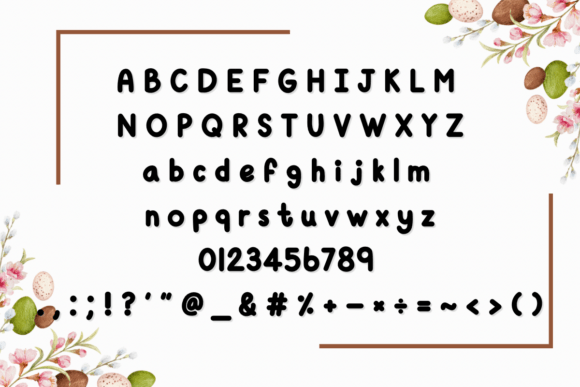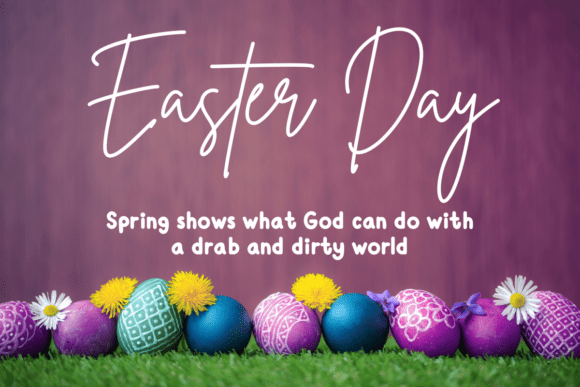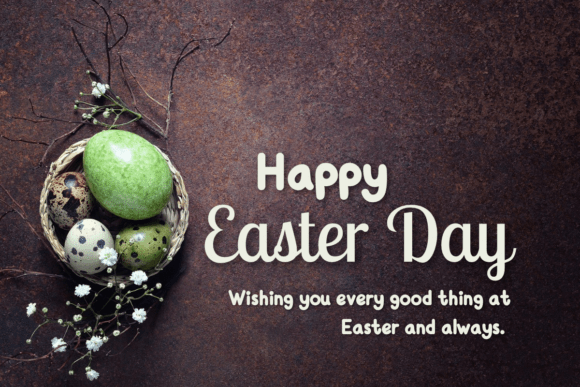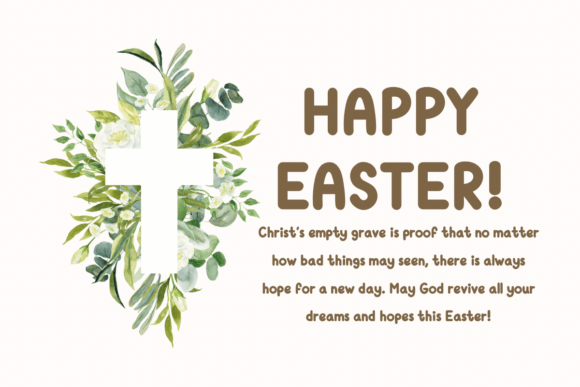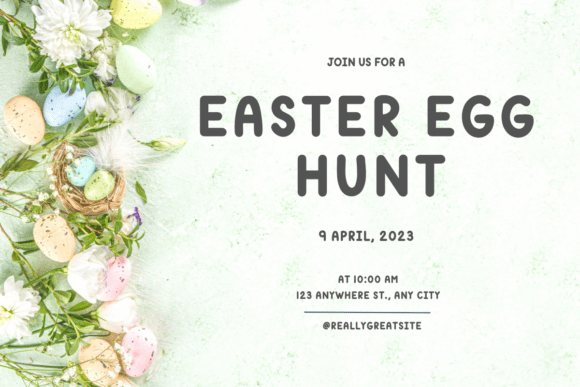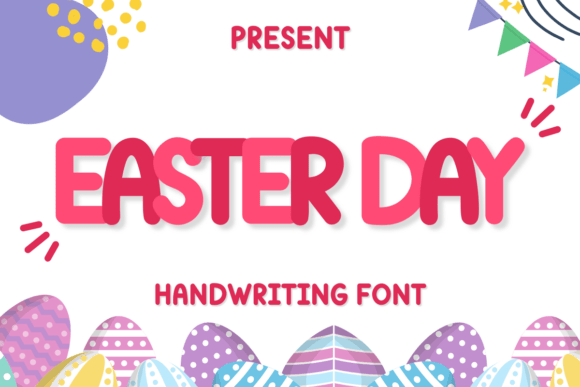
Easter Day Font: A Delightful Handwritten Style for Your Creative Projects
Easter Day is a charming handwritten font that has been making waves in the design community. Its unique and personal touch makes it perfect for a variety of creative projects, from taking notes and writing diaries to creating greeting cards and more. In this article, we’ll explore the features and uses of the Easter Day font, and how you can incorporate it into your designs.
What is Easter Day Font?
Easter Day is a handwritten font that boasts a warm and friendly aesthetic. Its flowing lines and delicate curves give it a personal and approachable feel, making it ideal for designs that require a touch of personality. The font is versatile and can be used for a wide range of projects, from everyday writing to decorative designs.
Uses of Easter Day Font
The Easter Day font is incredibly versatile and can be used for various design projects, including:
- Note-taking and journaling: Add a personal touch to your notes and diary entries with the Easter Day font.
- Greeting cards and invitations: Create beautiful and unique greeting cards and invitations for special occasions.
- Banners and signs: Use the Easter Day font to create eye-catching banners and signs for events and promotions.
- Content creation: Add a touch of personality to your blog posts, social media updates, and other content.
- Mugs and ceramics: Design personalized mugs, plates, and other ceramics with the Easter Day font.
- Cards and stationery: Create custom cards, letterheads, and stationery with the Easter Day font.
- T-shirts and apparel: Design unique and stylish t-shirts, hoodies, and other apparel with the Easter Day font.
- Social media posts: Use the Easter Day font to create engaging and eye-catching social media posts.
Why Choose Easter Day Font?
There are many reasons why you should consider using the Easter Day font for your designs:
- Unique and personal touch: The Easter Day font adds a personal and unique touch to your designs, setting them apart from others.
- Versatile: The font can be used for a wide range of design projects, from everyday writing to decorative designs.
- Easy to read: The Easter Day font is clear and easy to read, making it perfect for body text and other written content.
- Customizable: You can adjust the font size, color, and style to suit your design needs.
Tips for Using Easter Day Font
Here are some tips for getting the most out of the Easter Day font:
- Pair with other fonts: Combine the Easter Day font with other fonts to create a unique and visually appealing design.
- Experiment with colors: Try out different colors and color combinations to add depth and interest to your designs.
- Use for headings and titles: Use the Easter Day font for headings and titles to add a touch of personality to your designs.
- Keep it simple: Don’t be afraid to keep your design simple and clean, letting the Easter Day font take center stage.
The Easter Day font is a delightful handwritten font that can add a personal and unique touch to your designs. Its versatility and ease of use make it perfect for a wide range of creative projects, from everyday writing to decorative designs. Whether you’re a designer, crafter, or simply someone who loves to create, the Easter Day font is a great addition to your design toolkit.
So why not give the Easter Day font a try? With its charming and friendly aesthetic, it’s sure to bring a smile to your face and a touch of personality to your designs.